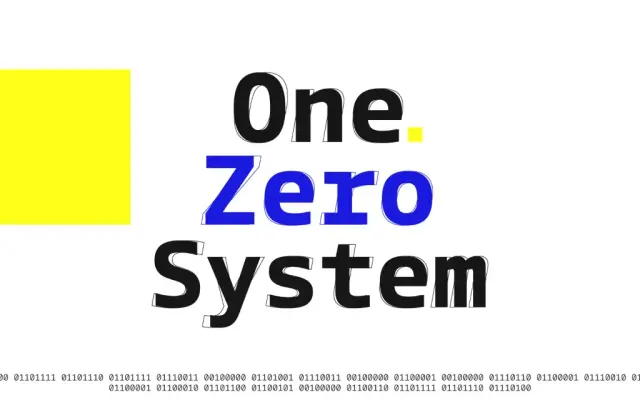
Tonos Mono
A humanist monospaced typeface with calligraphic roots, covering Latin, Cyrillic and Greek across five weights with true italics and variable font support.
Designed as the monospaced companion to Tonos, this family is built around UI and HMI applications where legibility at small sizes and consistent rhythm across scripts matter. Its calligraphic origins give each script a warmth that avoids the coldness typical of fixed-width faces. Five weights from Light to Bold ship with matching italics and variable fonts, making it practical for coded interfaces, dashboards and multilingual digital products.
A monospaced typeface with calligraphic, humanistic roots designed explicitly for UI and HMI contexts, covering Latin, Cyrillic and Greek with consistent warmth across all scripts.